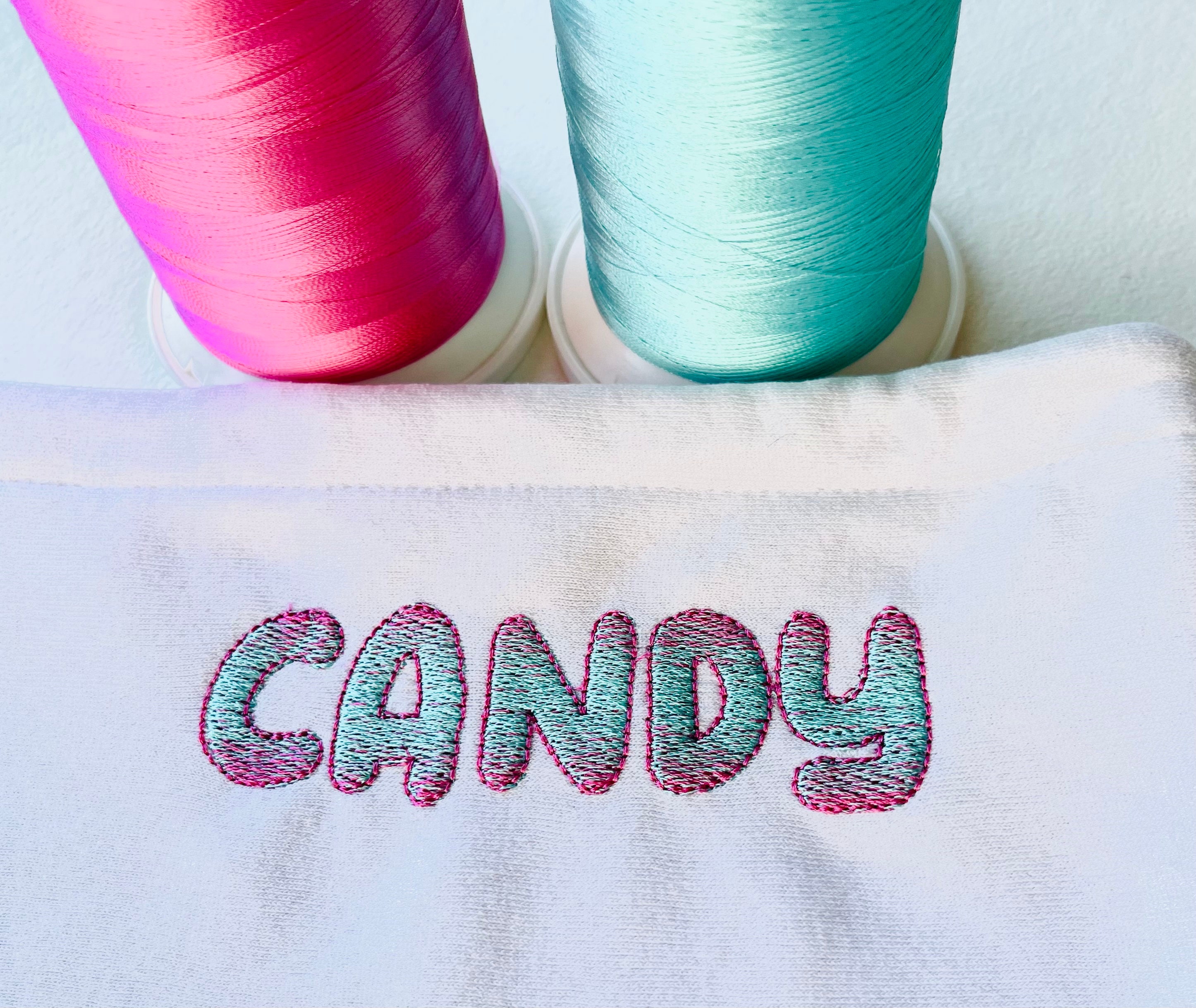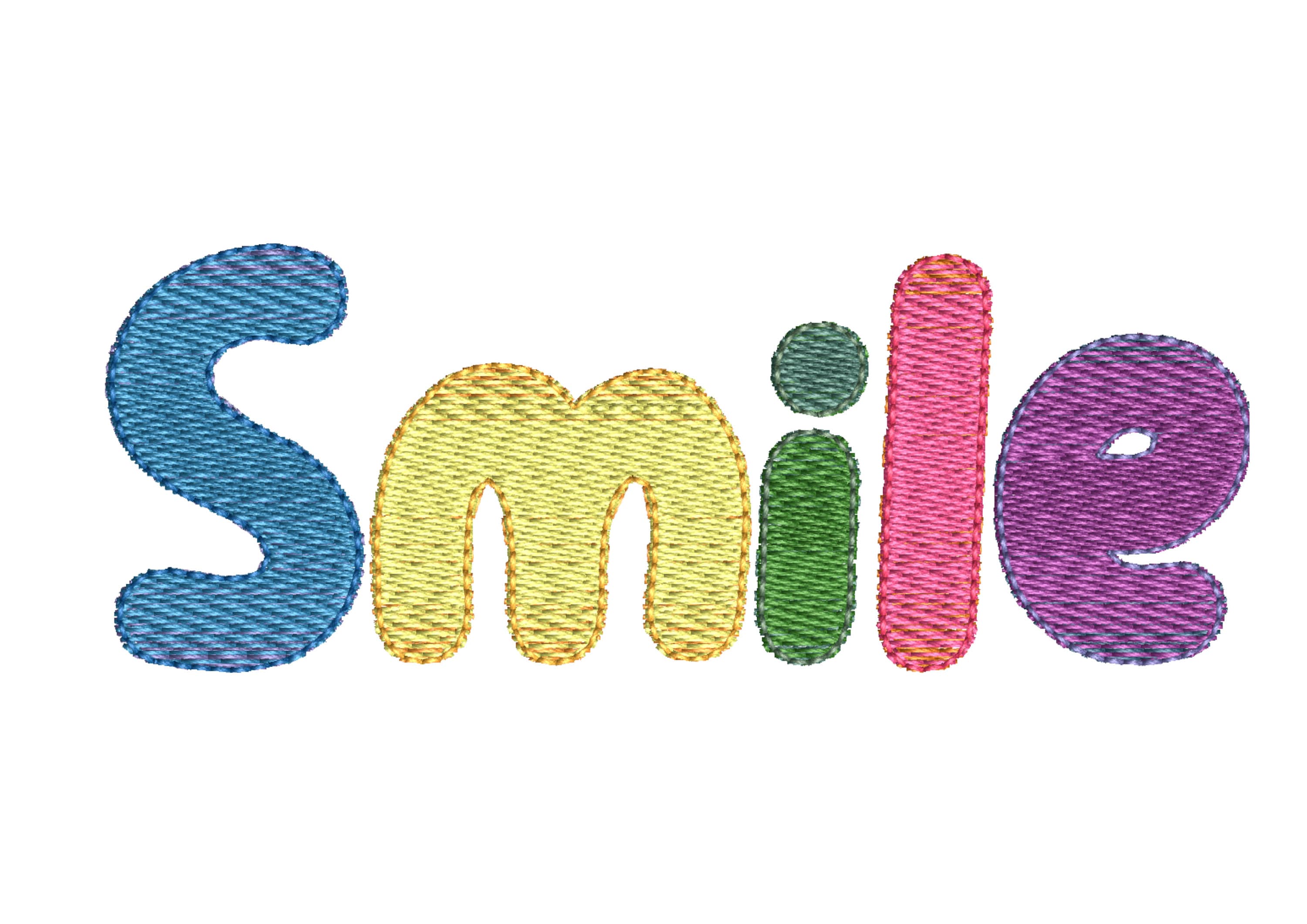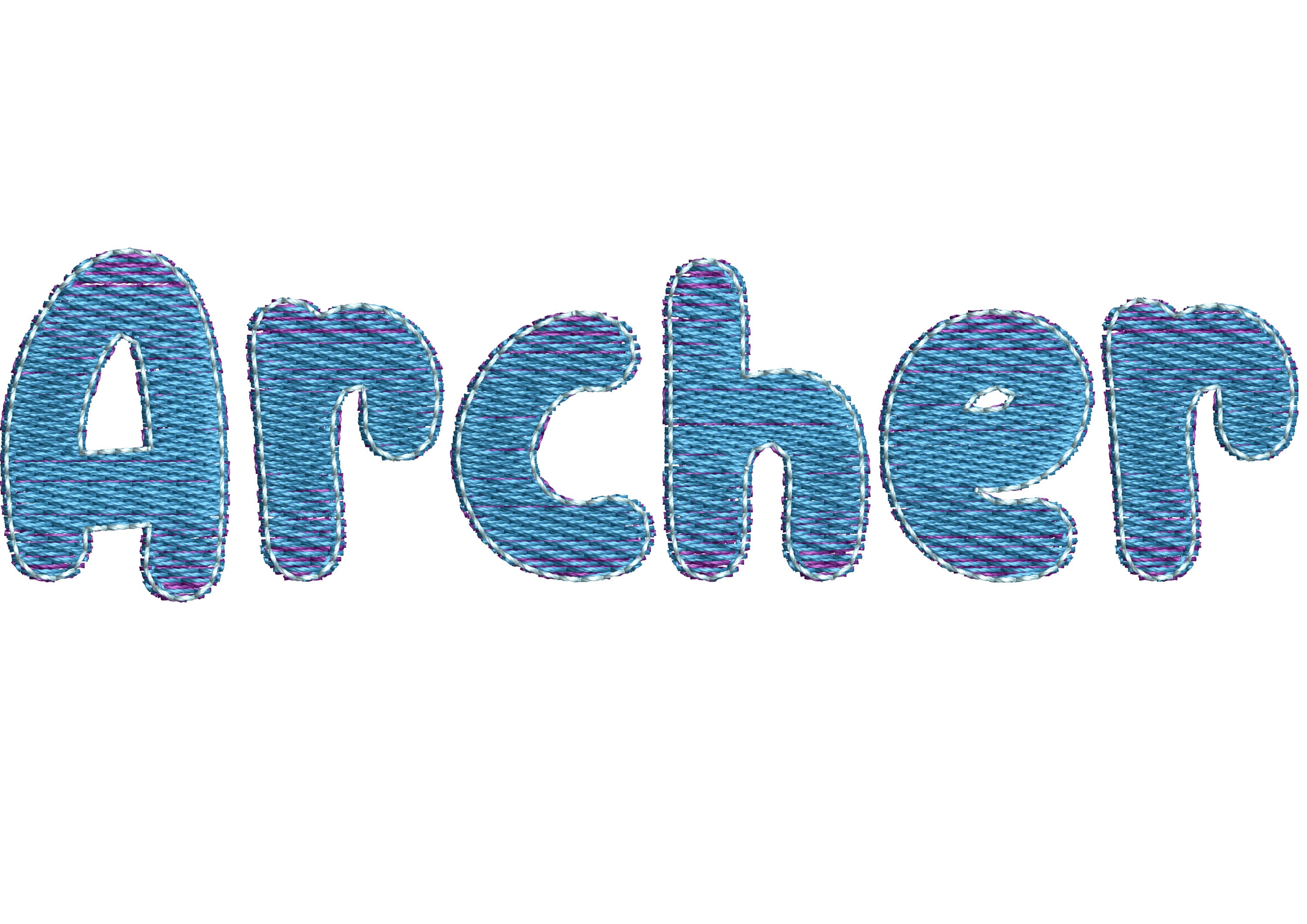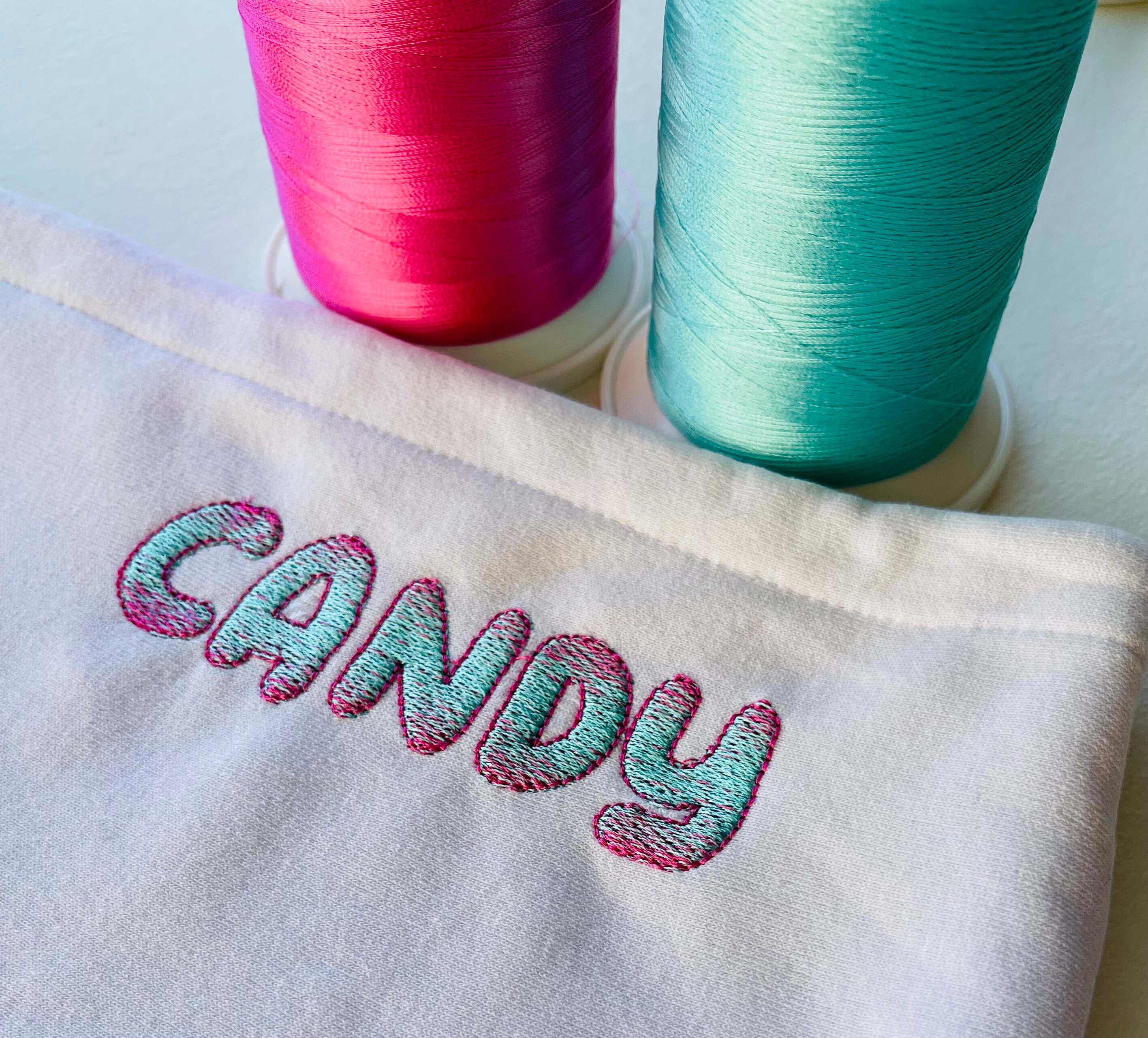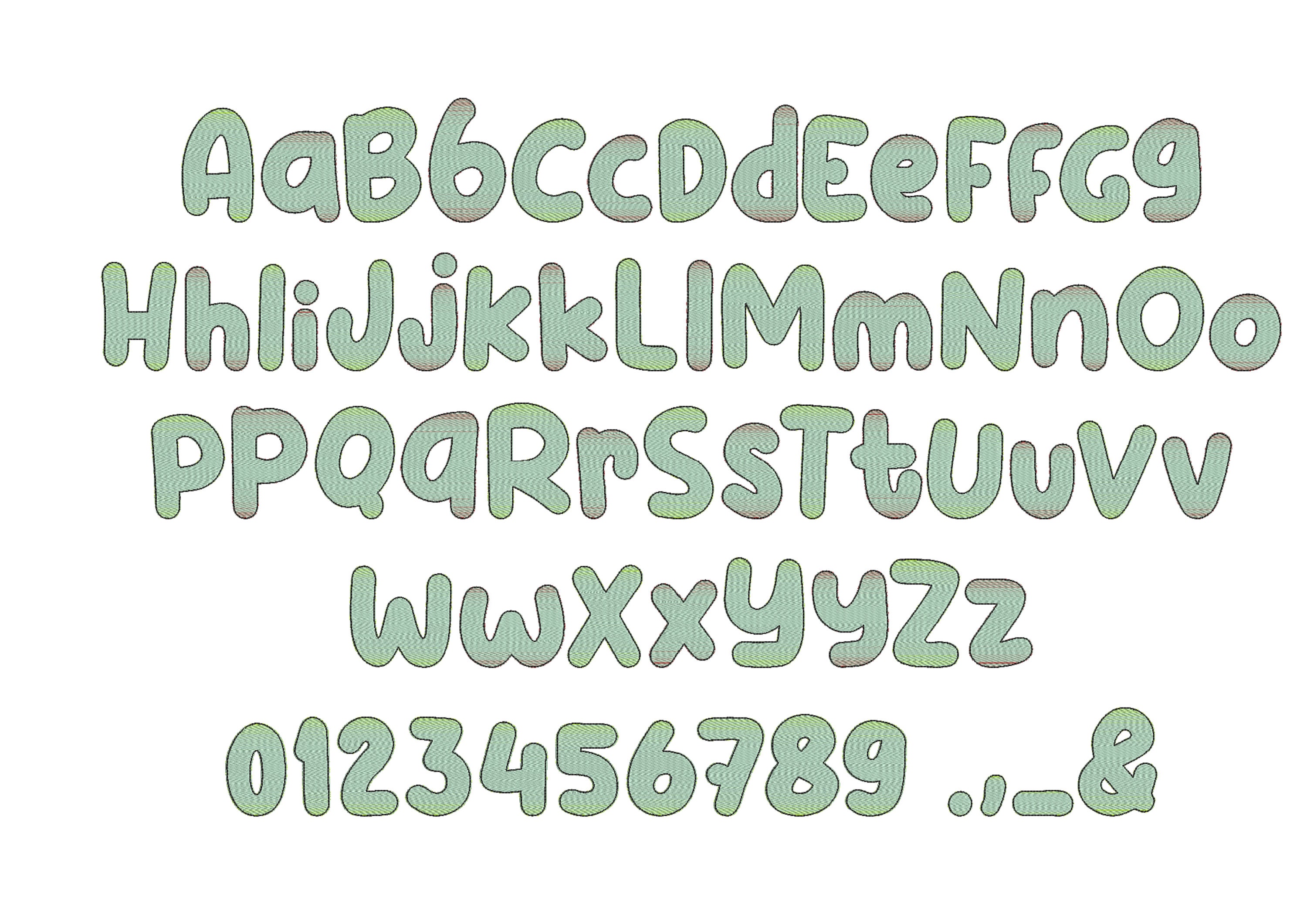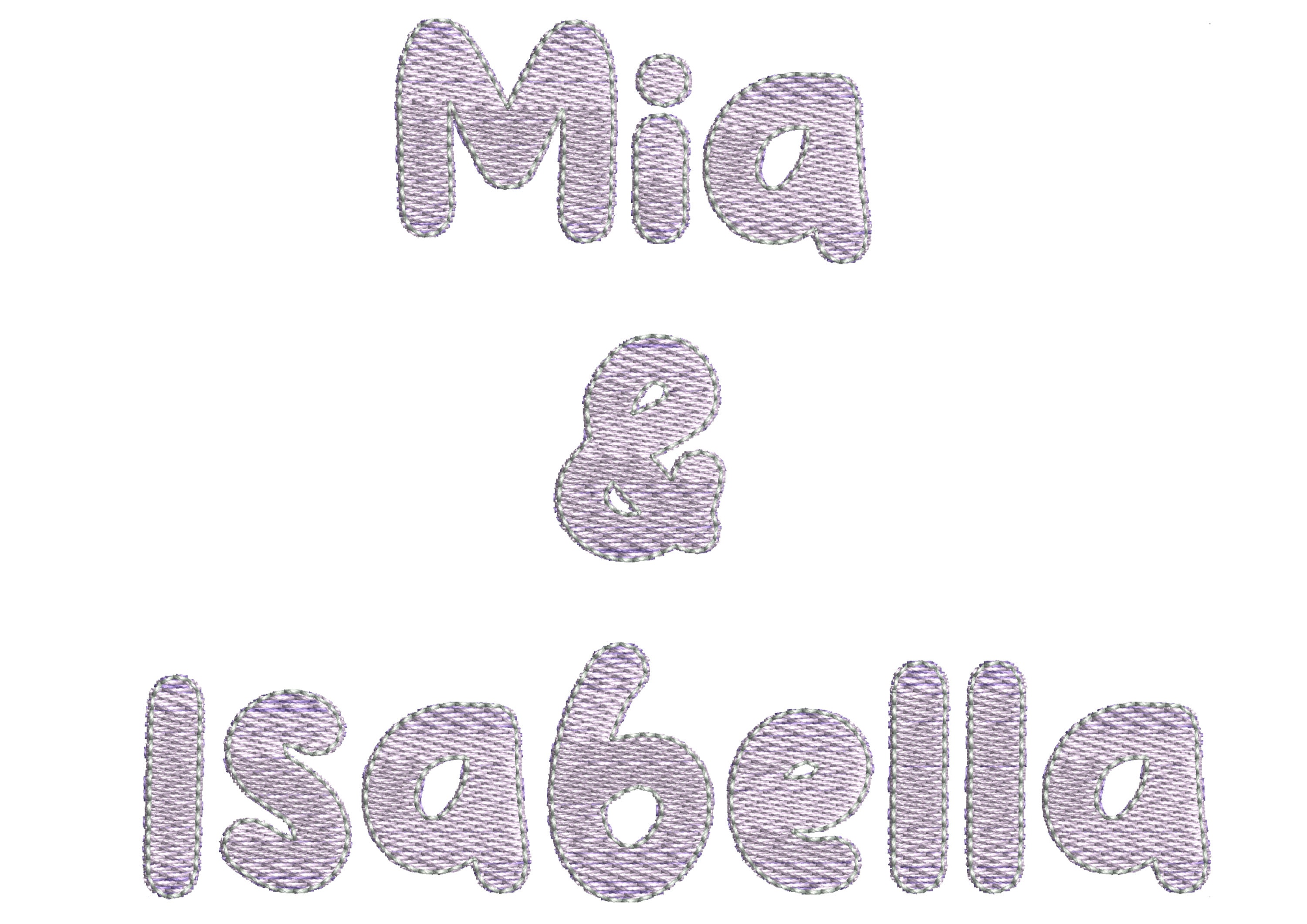
Full ombre gradient rainbow retro Font fill stitch alphabet machine embroidery designs sizes 1.2 thru 4.6 inches, kids name monogram, BX included
Uppercase and lowercase letters, numbers, punctuation
No special thread is required, just usual solid color embroidery threads. The gradient effect will appear by itself thanks to the design. Every letter has 2 colors. The machine stitches the letter with one color, change the thread and finish with the second color. Easy as a pie!